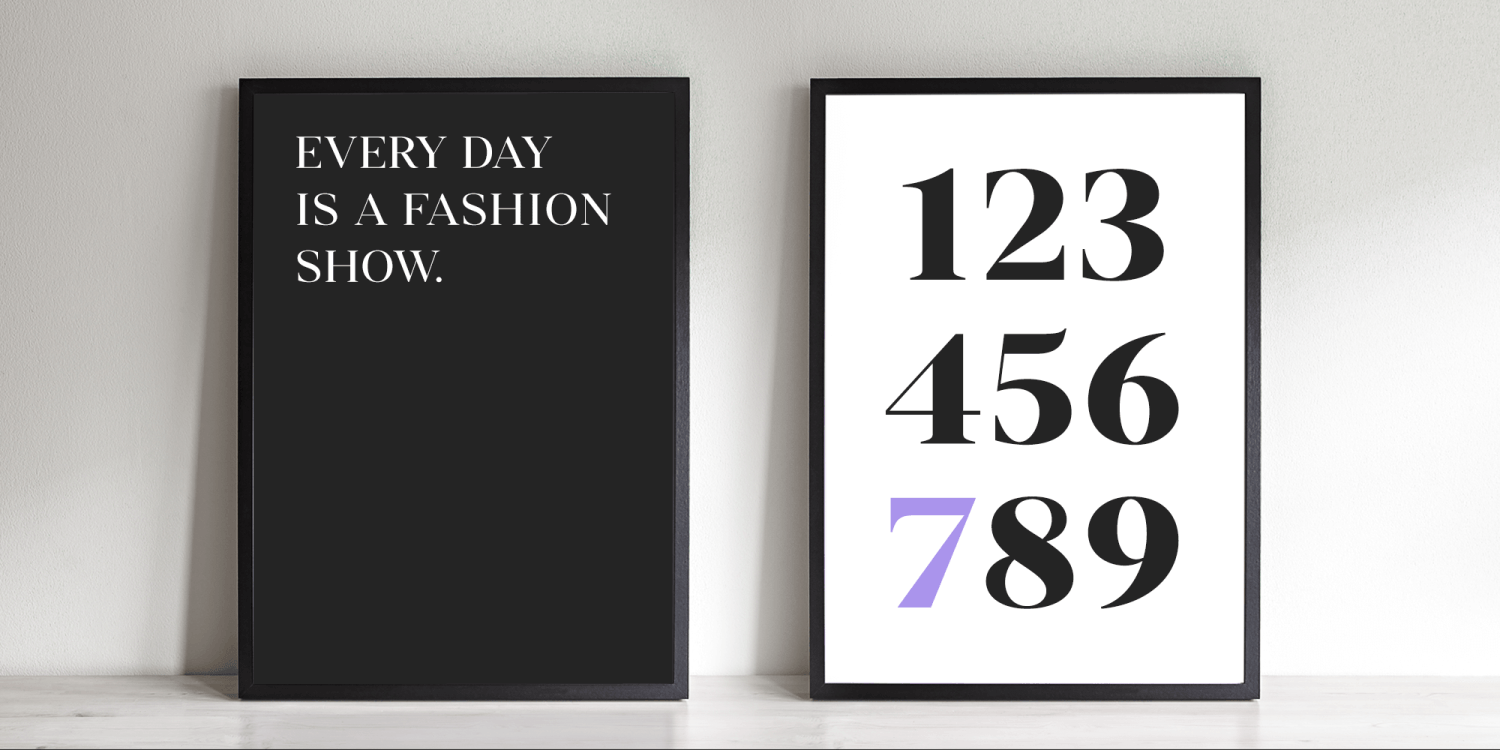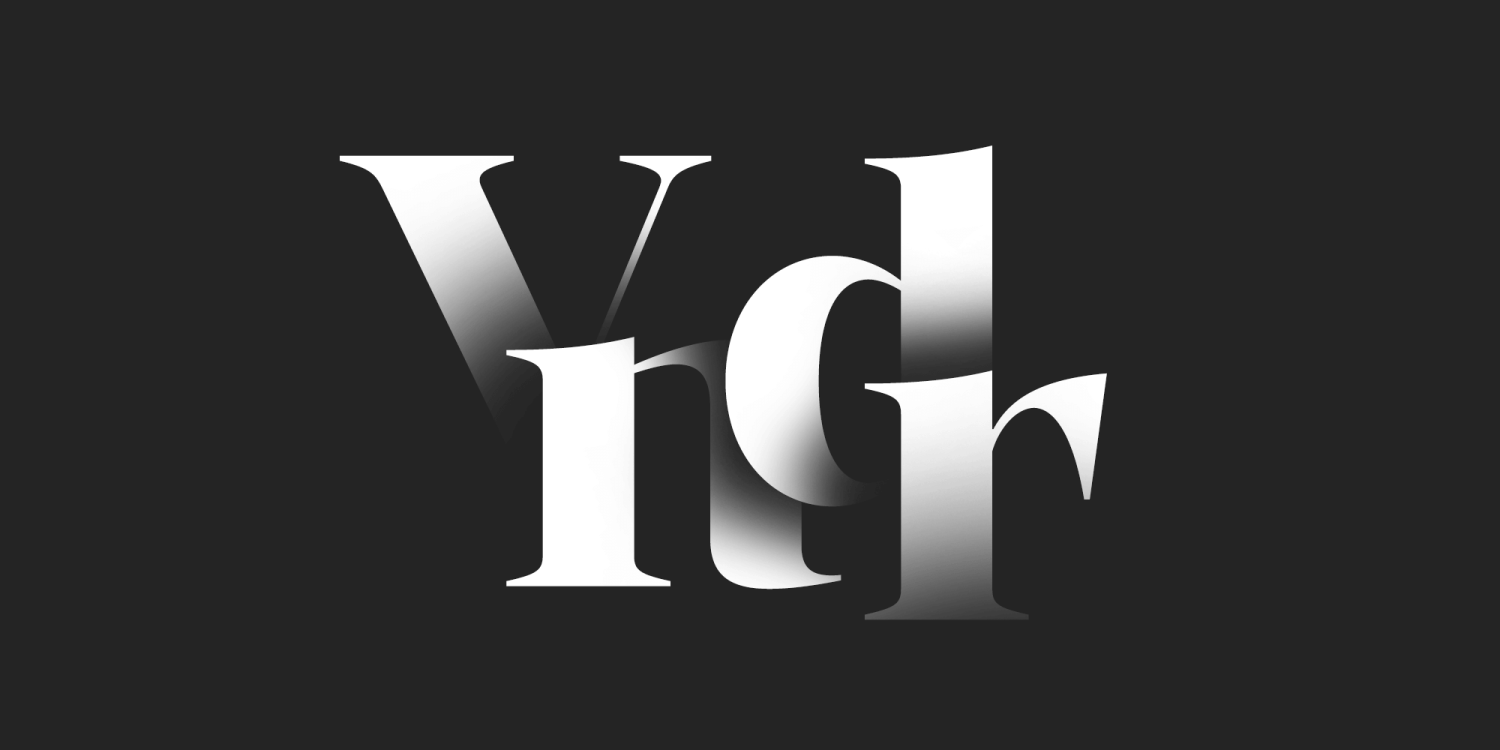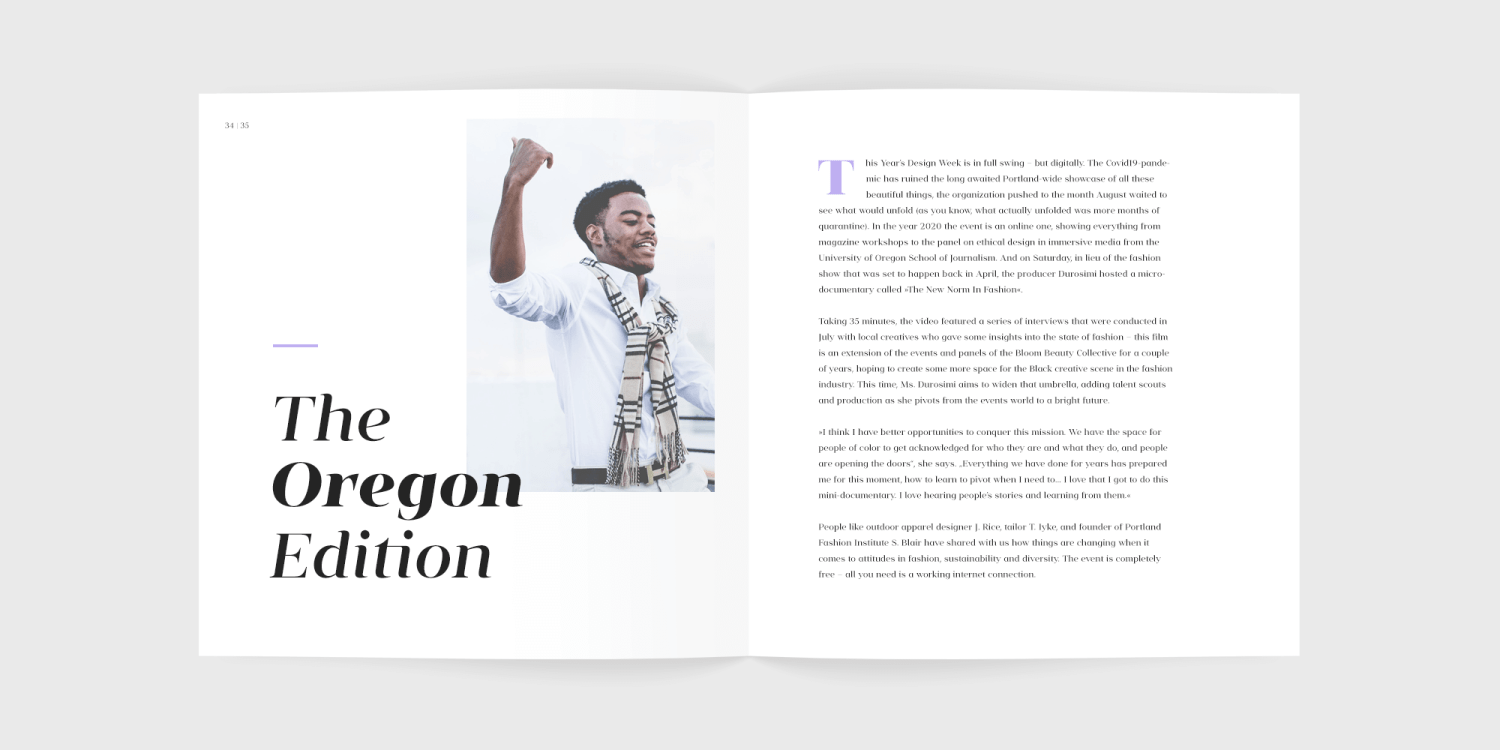
About Vendura
Meet Vendura, an elegant serif-family with a modern touch. While being a homage to the beloved high-contrast didone typefaces from the 18th and 19th century, Vendura comes up with some unique design details, giving this family a modern twist. It adds…